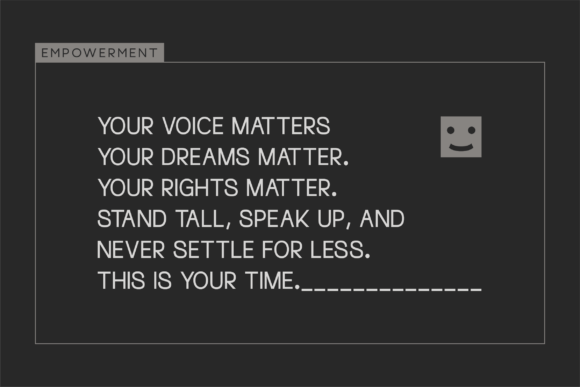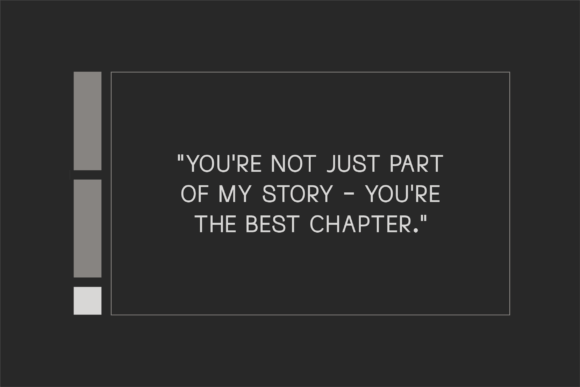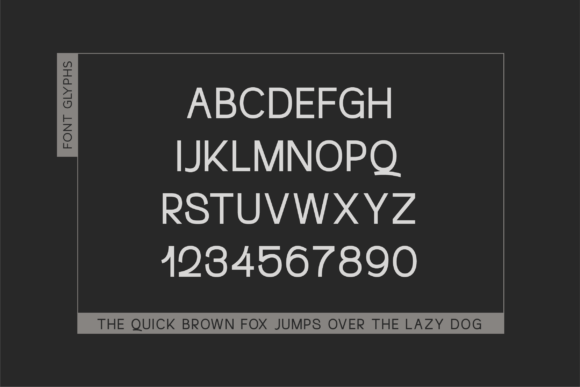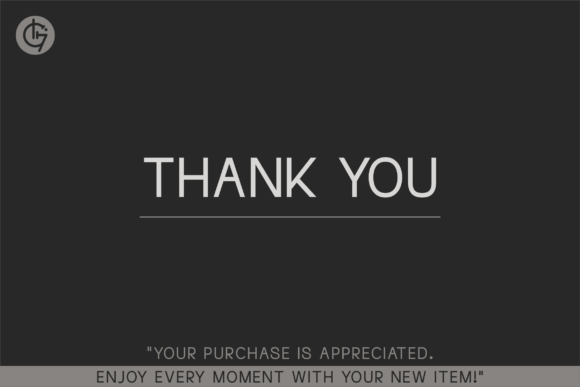
Discover the Power of a Perfect Typeface
Have you ever stared at a blank canvas, searching for the perfect font to bring your design to life? The frustration can be real, but what if you had a go-to solution that guaranteed impact? Meet Boernoth Font, a bold, all-caps sans serif typeface designed to make your designs shine. With its clean lines and minimalist aesthetic, Boernoth exudes strength and authority, perfect for projects that require a sense of professionalism and impact.
As a designer, you understand the importance of a well-chosen typeface. That’s why Boernoth Font is a valuable addition to your toolkit. Its versatility and readability make it ideal for branding, logos, packaging, and digital design. Whether you’re working on a large-scale project or a smaller text block, Boernoth Font ensures your message stands out with its sharp, crisp edges.
Boernoth Font Key Features
- Size: The font family consists of 6 weights, ranging from Light to Black, providing flexibility for various design applications.
- Unique Characteristics: Boernoth Font features a unique blend of modern and traditional elements, with subtle flair and elegance, making it suitable for a wide range of design projects.
- Language Support: The font supports multiple languages, including Latin, Cyrillic, and Greek scripts, expanding its usability across various cultural and linguistic contexts.
- Font Metrics: The font’s metrics are carefully designed to ensure optimal readability, with precise control over line spacing, letter spacing, and character width.
Review: Boernoth Font
First off, I’d like to say that Boernoth is a beautiful font ✨. Its unique blend of modern and traditional elements gives it a timeless quality that’s hard to resist. The subtle texture and organic feel of the font make it perfect for anything from branding to editorial content.
However, there are a few limitations to consider ⚠️. For one, the font’s weight system can be a bit inconsistent, with some weights feeling more like variations of each other rather than distinct styles. Additionally, the font’s x-height can be a bit on the small side, which may cause readability issues in certain contexts.
- Unique blend of modern and traditional elements
- Subtle texture and organic feel
- Perfect for branding, editorial content, and more
- Inconsistent weight system
- Small x-height may cause readability issues
Overall, I think Boernoth is a great font for designers who want to add a touch of sophistication and elegance to their projects. While it may have some limitations, its unique character and versatility make it well worth considering.
Use the Boernoth Font for titles, headings, and other emphasis text to create visual interest.
Pair the font with a clean and simple background to make it stand out.
Use the Boernoth Font for:
1. Creative projects, such as book covers, posters, and brochures.
2. Branding and marketing materials, such as business cards and logos.
3. Digital products, such as ebooks and presentations.
Alternatives to Boernoth Font
The Boernoth Font is a unique, modern sans-serif font known for its geometric shapes and clean lines. However, designers may look for alternatives to add variety to their designs. Here are a few options:
Montserrat is a geometric sans-serif font inspired by the urban landscape of Buenos Aires. It’s ideal for use in headings and titles, and its bold and condensed versions work well for digital displays. Montserrat has a similar geometric feel to Boernoth Font, but with a more urban and gritty aesthetic.
Open Sans is a clean and modern sans-serif font designed for digital use. It’s highly legible and works well in a variety of contexts, from body text to headings. Open Sans has a more rounded feel than Boernoth Font, making it a good choice for designs that require a softer, more approachable look.